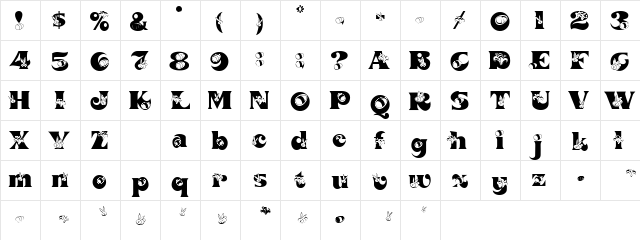
EASTER Regular
Design Context for EASTER Typeface
EASTER is a composed and adaptable typeface that performs quietly and consistently across a wide range of design contexts.